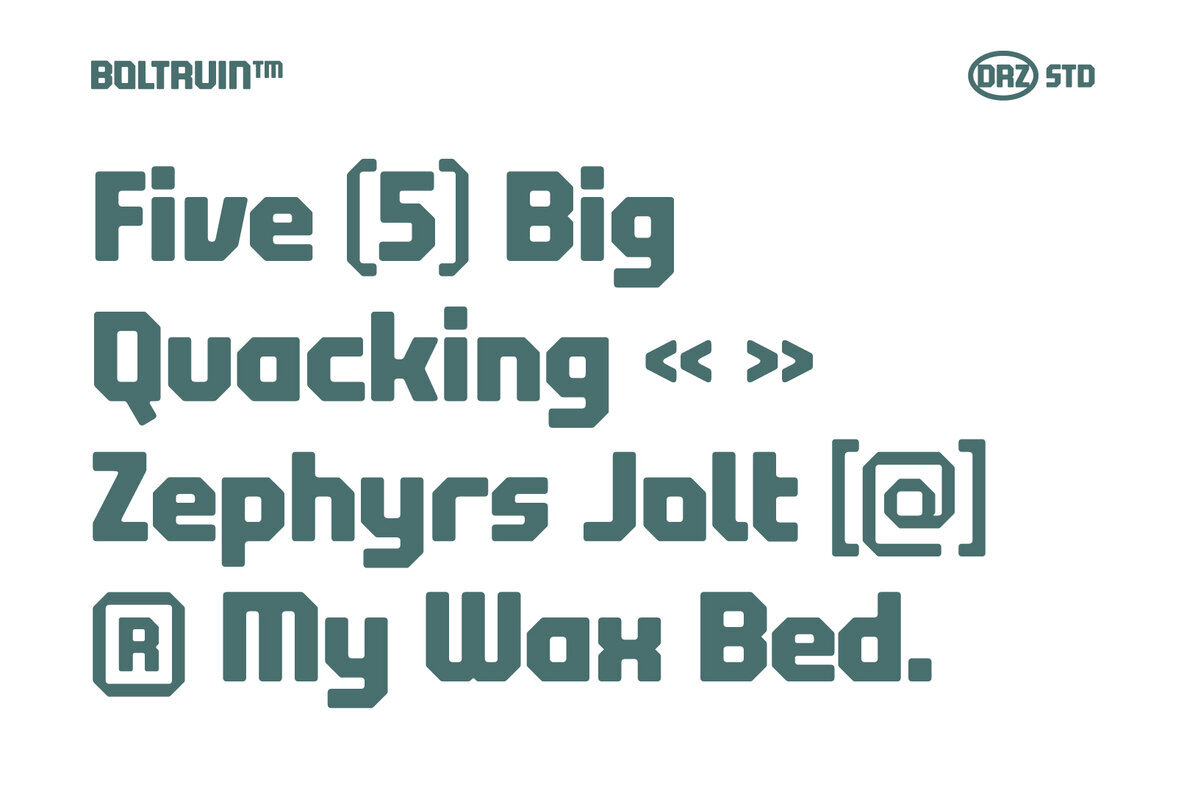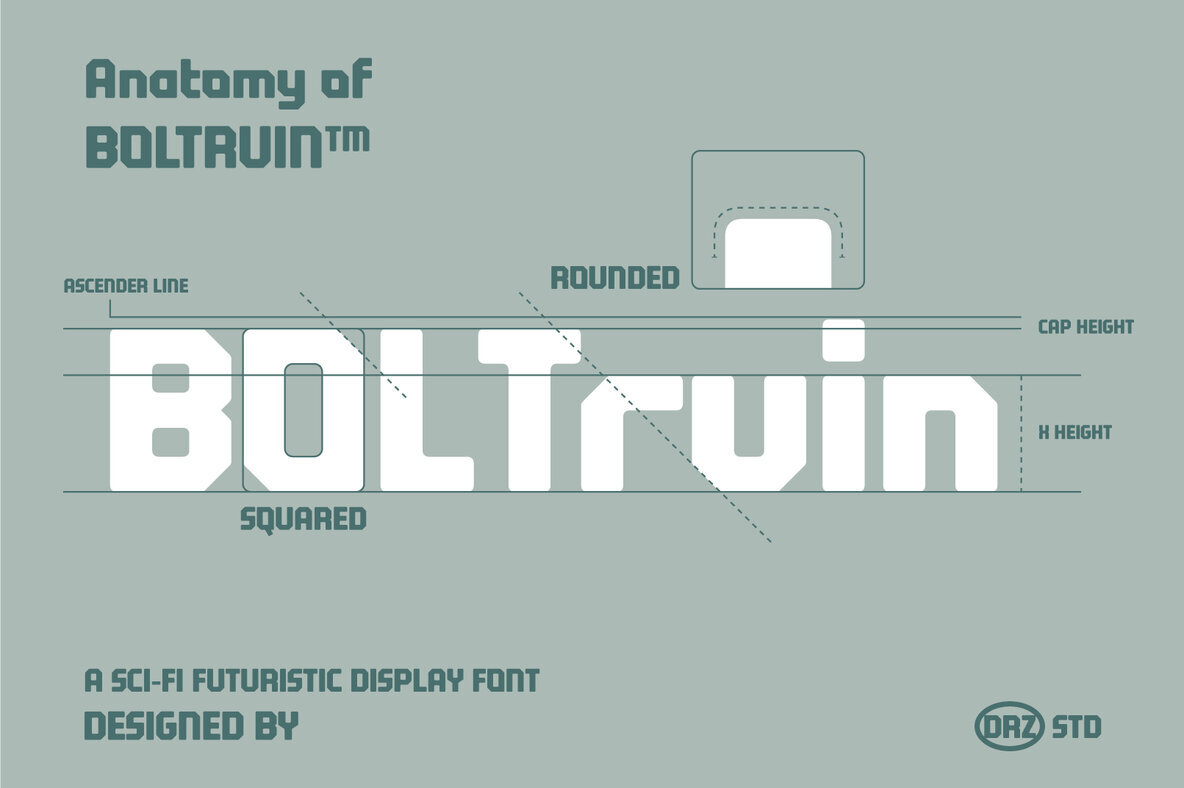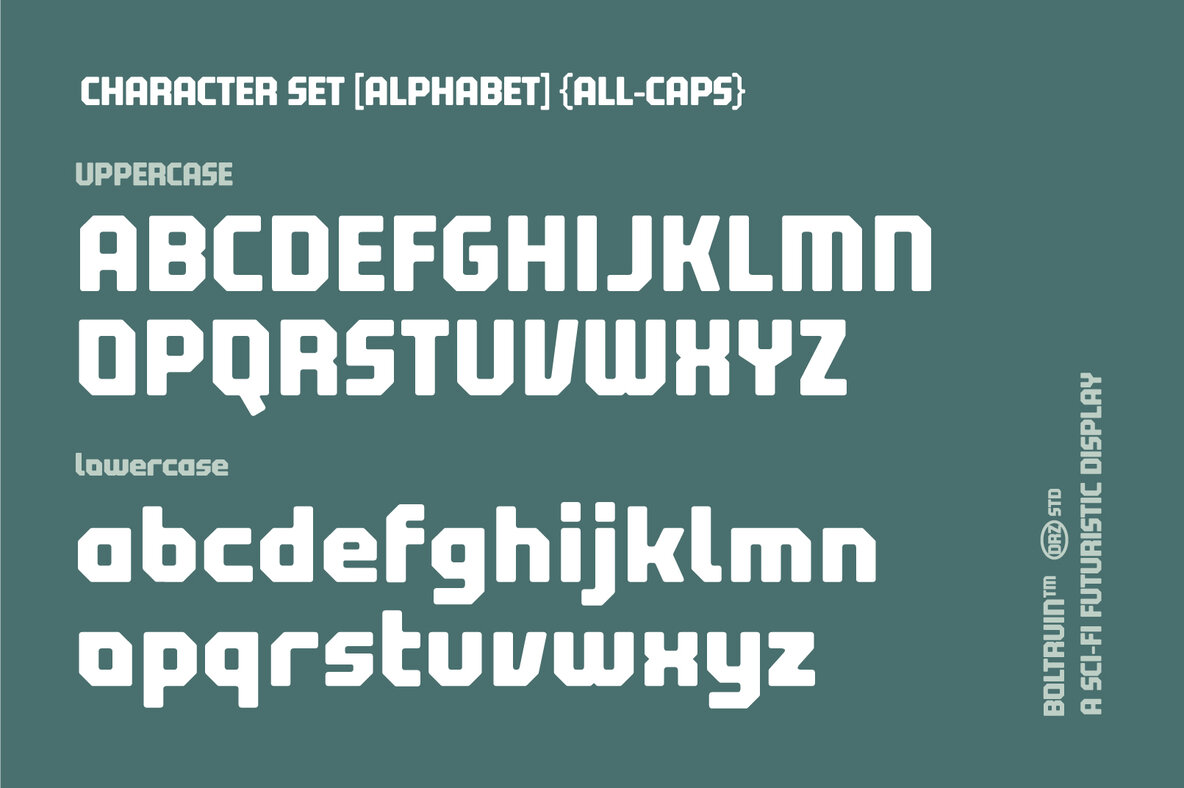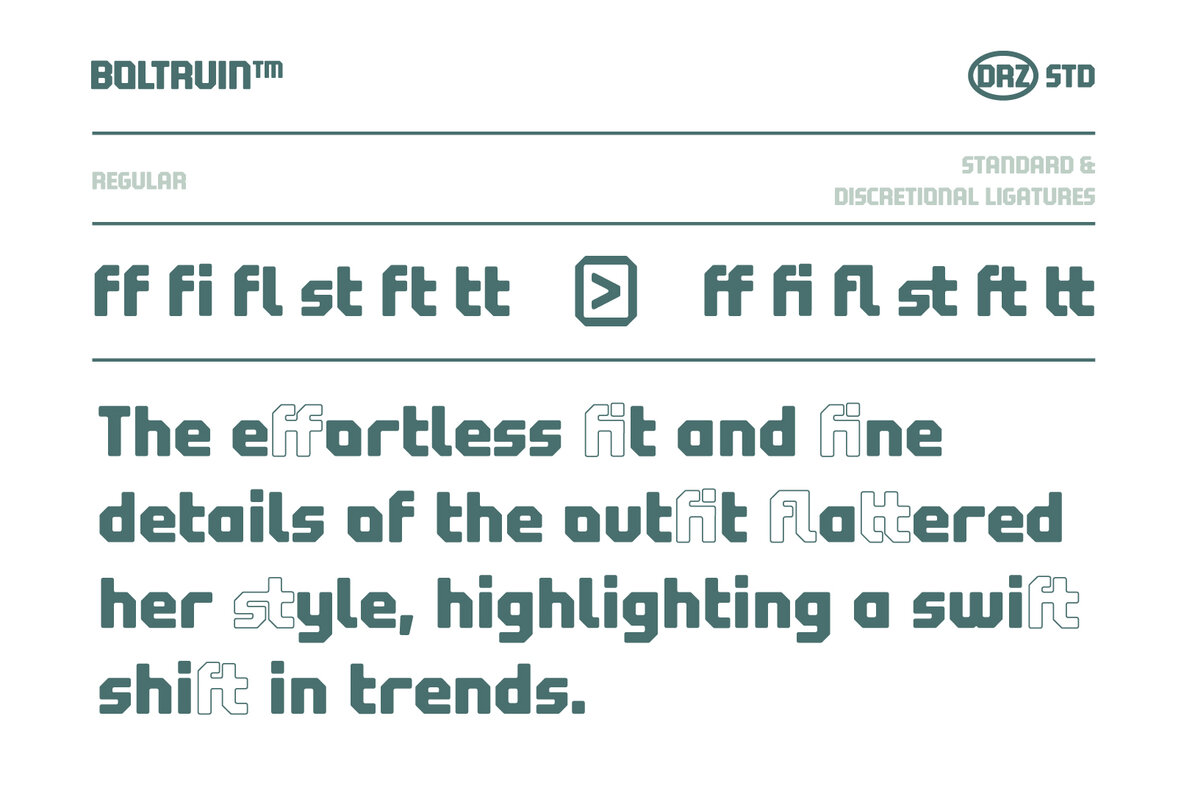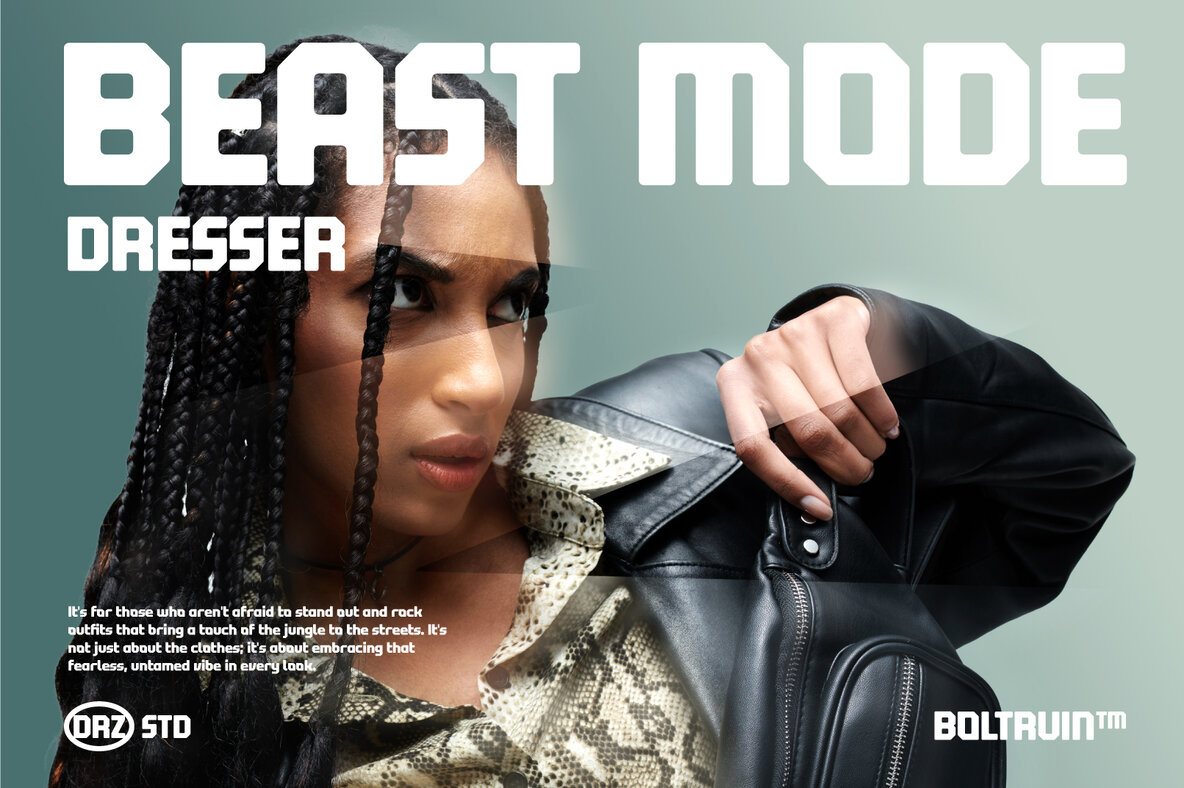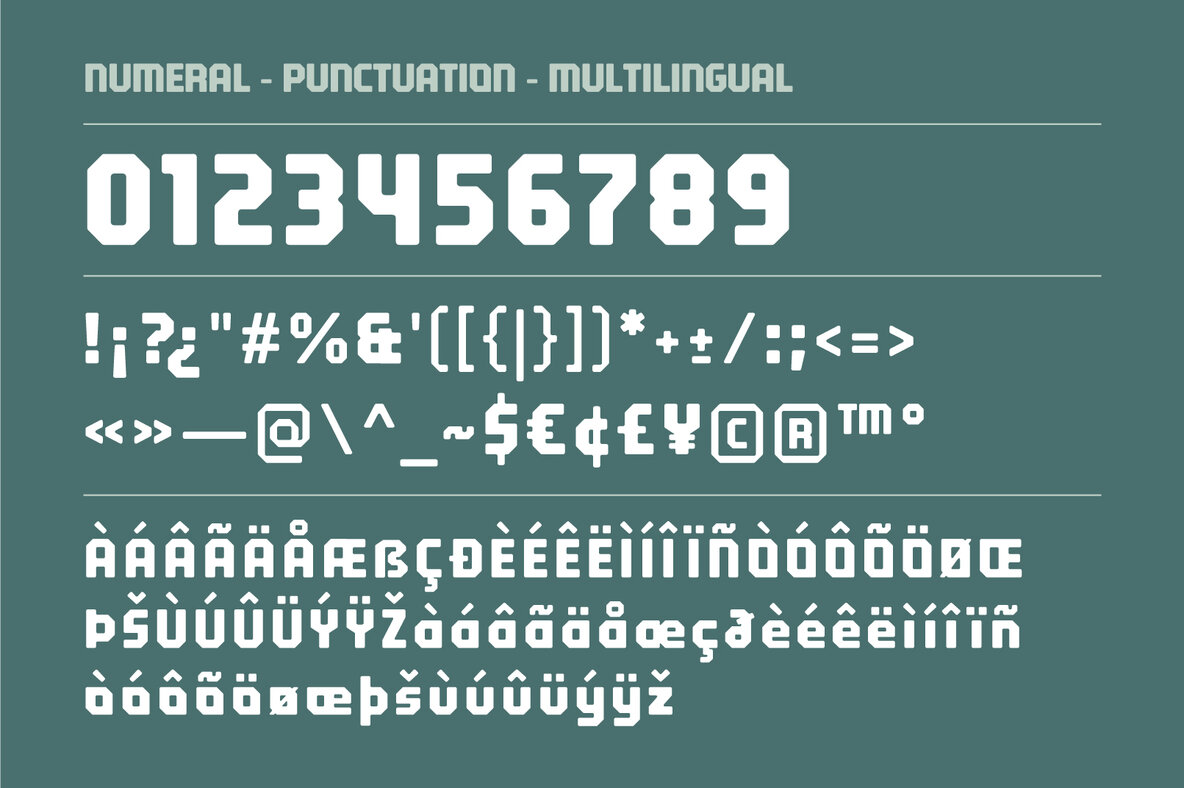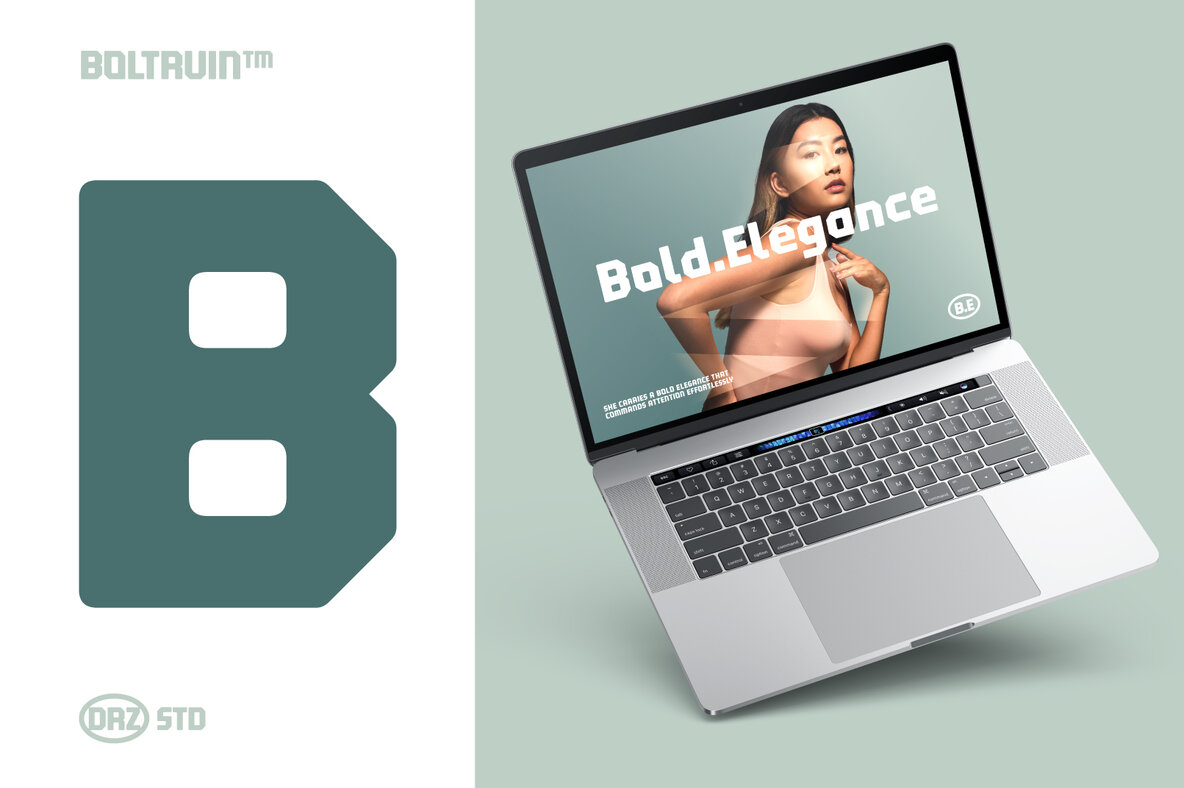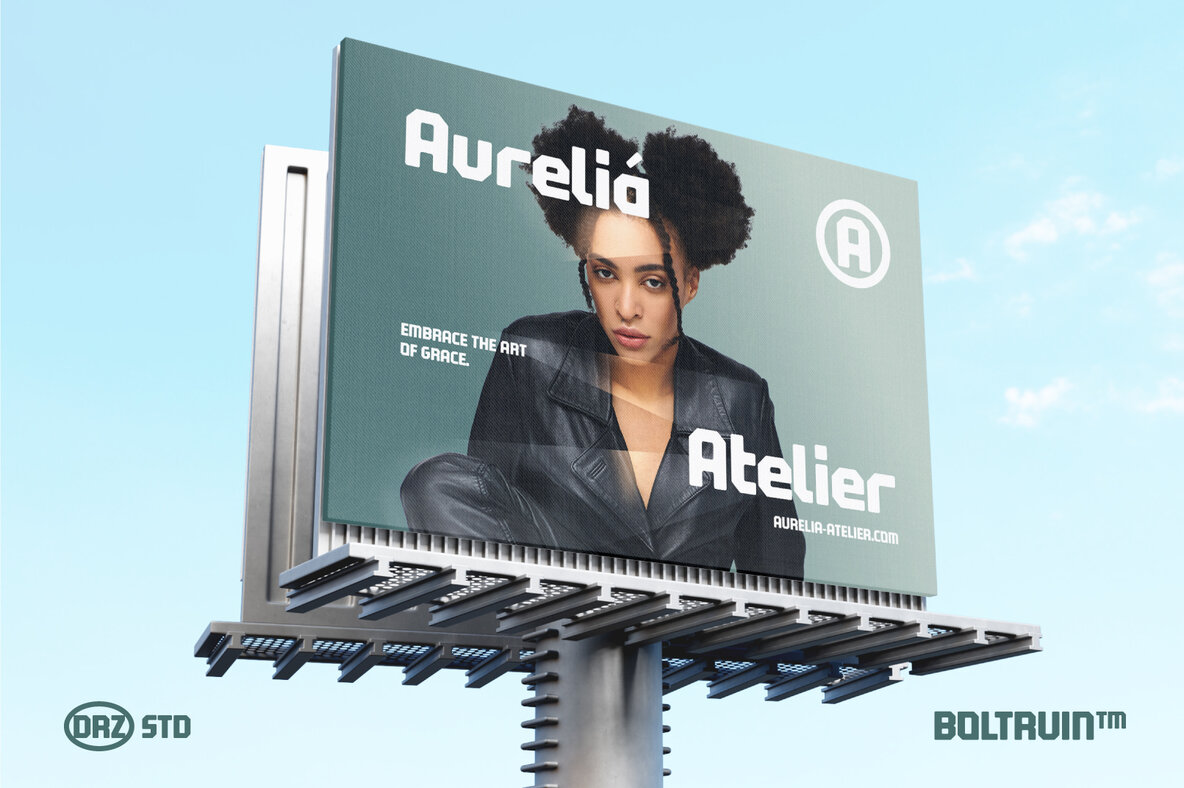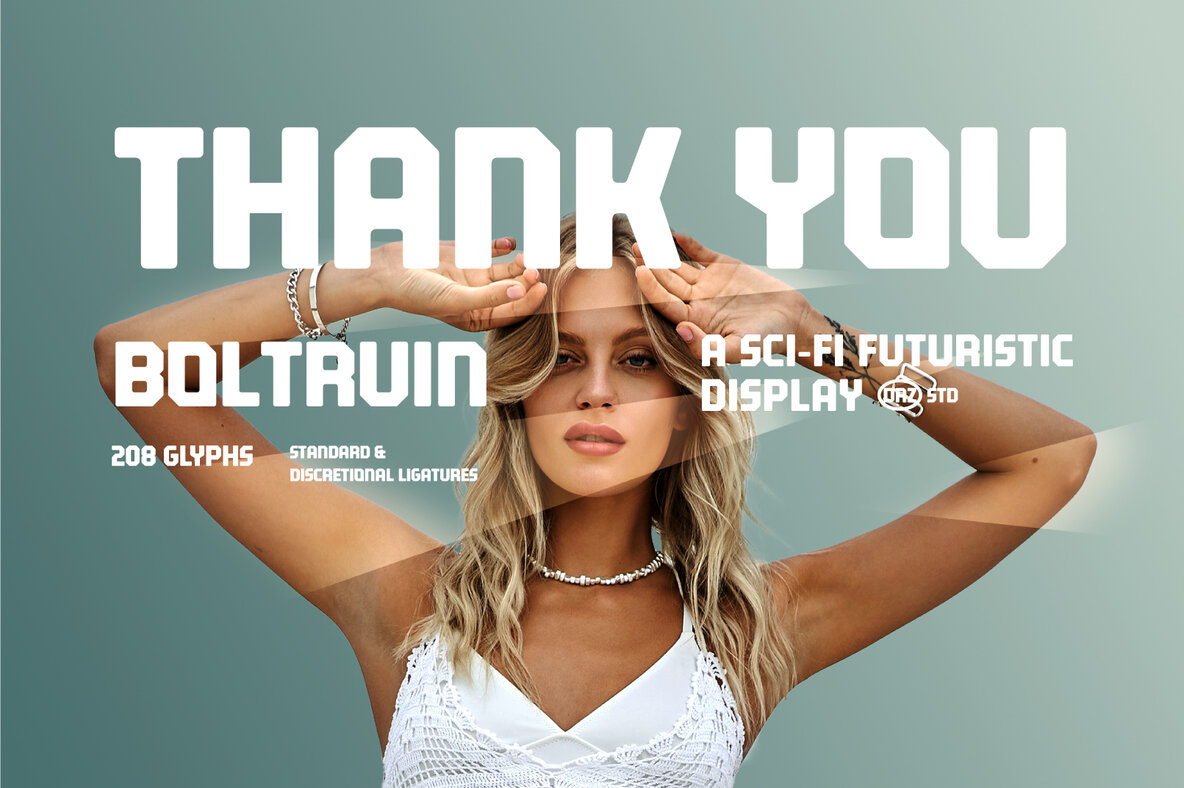
Boltruin Font
Boltruin Regular
Boltruin is a cutting-edge, SciFi futuristic display font crafted for designers aiming to push creative boundaries. As part of the Winter Streetwear font collection, it merges a sleek, futuristic style with bold, impactful letterforms. Ideal for projects requiring an edgy, innovative touch, Boltruin's sharp angles and unique lines infuse a high-tech, sci-fi vibe into any design. Whether you're working on streetwear fashion, tech-focused branding, or futuristic posters, this font promises to make your work stand out with its fresh, modern style.
This dynamic font includes a versatile character set featuring both uppercase and lowercase letters, along with punctuation and numbers. Boltruin supports multilingual capabilities and includes both standard and discretionary ligatures, offering a comprehensive toolkit for diverse design needs. Its vibrant energy ensures that your creations exude a bold, unmistakable presence, making it a perfect choice for forward-thinking designers.